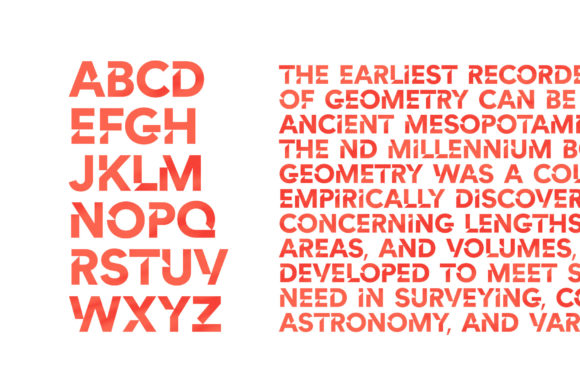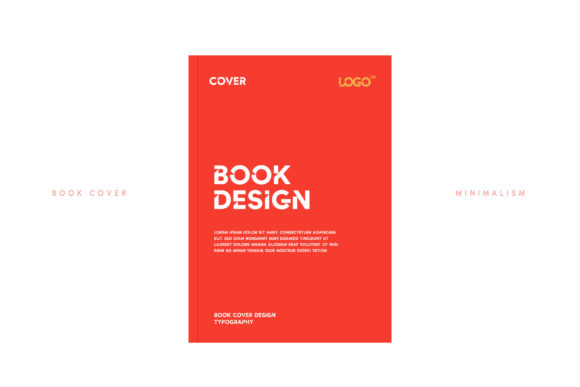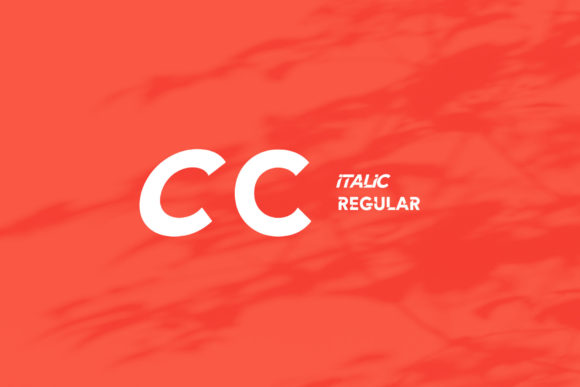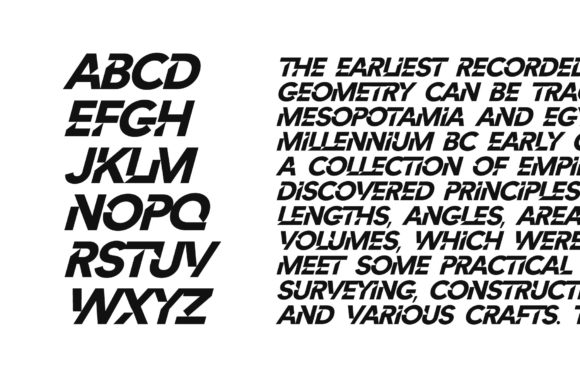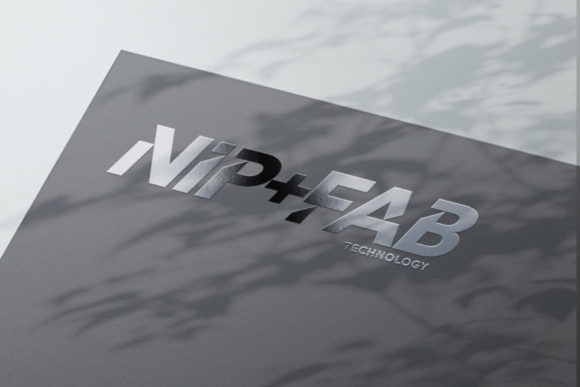
Introducing Angled Font: The Bold and Geometric Display Font for Modern Designs
In the world of typography, fonts play a crucial role in conveying the message and tone of a design. For designers and crafters looking for a bold and geometric styled display font, Angled Font is an excellent choice. This techno-looking font is perfect for creating modern and edgy designs that make a statement. In this article, we’ll explore the features and benefits of Angled Font and how it can elevate your designs.
What is Angled Font?
Angled Font is a bold and geometric styled display font designed to add a touch of modernity to your designs. Its techno-inspired aesthetic makes it perfect for creating futuristic and edgy designs that grab attention. The font’s unique angled style gives it a distinctive look that sets it apart from other fonts.
Key Features of Angled Font
- Bold and Geometric Style: Angled Font features a bold and geometric style that makes it perfect for creating modern and edgy designs.
- Techno-Inspired Aesthetic: The font’s techno-inspired aesthetic gives it a futuristic look that’s perfect for designs that require a cutting-edge feel.
- High Versatility: Angled Font is suitable for a wide range of designs, including t-shirts, sportswear, logos, advertisements, clothing, and more.
- Easily Readable: Despite its bold style, Angled Font is easily readable, making it perfect for designs that require a clear and concise message.
Use Cases for Angled Font
Angled Font is a versatile font that can be used in various design projects. Here are some use cases where Angled Font shines:
- T-Shirts and Sportswear: Angled Font is perfect for designing modern and edgy t-shirts and sportswear that make a statement.
- Logos and Branding: The font’s bold and geometric style makes it ideal for creating logos and branding materials that require a modern and futuristic look.
- Advertisements: Angled Font is perfect for creating eye-catching advertisements that grab attention and convey a clear message.
- Clothing and Fashion: The font’s techno-inspired aesthetic makes it suitable for designing clothing and fashion materials that require a modern and edgy look.
Benefits of Using Angled Font
Using Angled Font in your designs offers several benefits, including:
- Unique and Modern Look: Angled Font gives your designs a unique and modern look that sets them apart from others.
- High Readability: The font’s clear and concise style ensures that your message is easily readable.
- Versatility: Angled Font can be used in various design projects, making it a valuable addition to your font library.
- Time-Saving: With Angled Font, you can create professional-looking designs quickly and efficiently.
| Font Name | Angled Font |
| Author | artyway |
Angled Font is a bold and geometric styled display font that’s perfect for creating modern and edgy designs. Its techno-inspired aesthetic and high versatility make it suitable for various design projects, including t-shirts, sportswear, logos, advertisements, clothing, and more. With its unique and modern look, high readability, and time-saving benefits, Angled Font is an excellent addition to any designer’s font library.